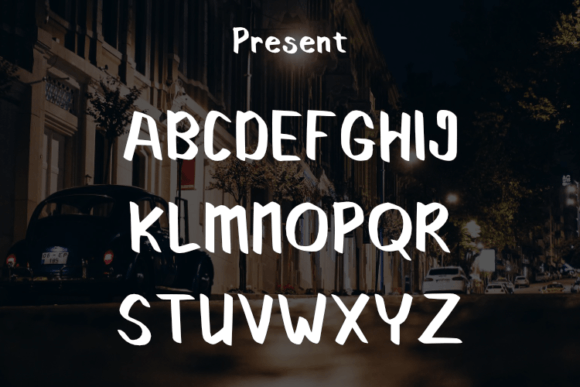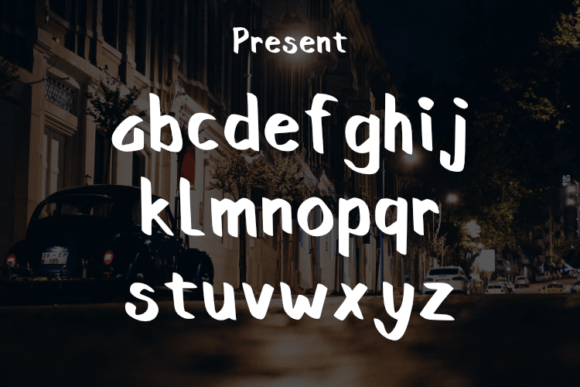
Introducing Eric Empire Font: The Modern and Natural Script Font You Need
Are you tired of using the same old fonts in your designs? Do you want to add a touch of elegance and sophistication to your projects? Look no further than Eric Empire Font, a modern and natural script font that’s sure to take your designs to the next level. In this article, we’ll dive into the features and benefits of Eric Empire Font, and explore how it can elevate your design game.
What is Eric Empire Font?
Eric Empire Font is a beautiful script font that’s perfect for a wide range of design applications. It’s characterized by its clean and fresh vibe, making it an excellent choice for designers who want to add a touch of modernity to their work. With its natural flow and elegant lines, Eric Empire Font is sure to make a statement in any design.
Key Features of Eric Empire Font
- Modern and Natural Script Font: Eric Empire Font is a script font that’s both modern and natural, making it perfect for designs that require a touch of elegance and sophistication.
- Clean and Fresh Vibe: The font has a clean and fresh vibe that’s sure to make your designs stand out from the crowd.
- Highly Versatile: Eric Empire Font is highly versatile, making it suitable for a wide range of design applications, from branding and advertising to packaging and digital media.
- Easy to Read: The font is easy to read, even at small sizes, making it perfect for body text and headlines.
Benefits of Using Eric Empire Font
So, why should you choose Eric Empire Font for your designs? Here are just a few benefits of using this amazing font:
- Adds Elegance and Sophistication: Eric Empire Font adds a touch of elegance and sophistication to any design, making it perfect for high-end brands and luxury products.
- Improves Readability: The font’s clean and fresh vibe makes it easy to read, even at small sizes, improving the overall readability of your designs.
- Increases Versatility: Eric Empire Font is highly versatile, making it suitable for a wide range of design applications, from print to digital media.
- Unique and Creative: The font’s unique and creative design makes it stand out from the crowd, adding a touch of personality to your designs.
How to Use Eric Empire Font in Your Designs
Using Eric Empire Font in your designs is easy. Here are a few tips to get you started:
- Pair it with Other Fonts: Eric Empire Font pairs well with other fonts, making it easy to create unique and creative typography combinations.
- Use it for Headlines and Body Text: The font is suitable for both headlines and body text, making it a great choice for a wide range of design applications.
- Experiment with Different Colors and Textures: Eric Empire Font looks great in a variety of colors and textures, so don’t be afraid to experiment and find the perfect combination for your design.
In conclusion, Eric Empire Font is a modern and natural script font that’s sure to take your designs to the next level. With its clean and fresh vibe, high versatility, and ease of use, it’s an excellent choice for designers who want to add a touch of elegance and sophistication to their work. Whether you’re working on a branding project, creating a website, or designing a brochure, Eric Empire Font is sure to make a statement. So why wait? Download Eric Empire Font today and start creating stunning designs that will leave a lasting impression on your audience.